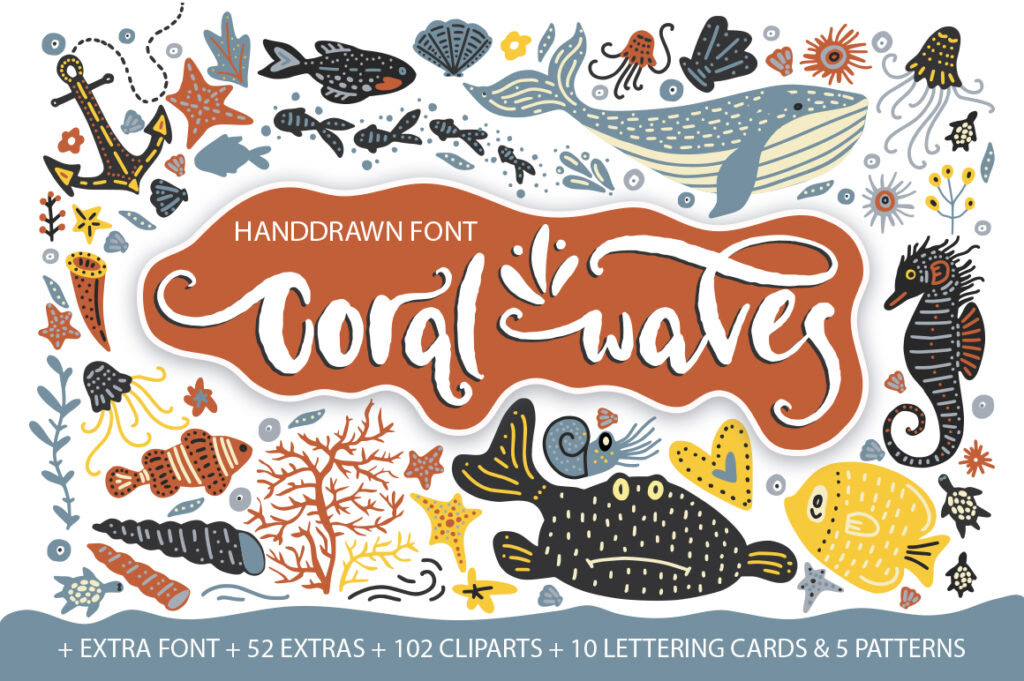
Coral Waves Font: A Friendly and Carefree Handwritten Font
Are you looking for a font that can add a touch of friendliness and carefree spirit to your designs? Look no further than the Coral Waves Font. This amazing handwritten font is perfect for a wide range of design projects, from branding and advertising to packaging and digital media. In this article, we’ll take a closer look at the Coral Waves Font, its features, and how you can use it to elevate your designs.
What is Coral Waves Font?
Coral Waves Font is a beautiful, hand-written font that exudes a sense of friendliness and playfulness. Its carefree and whimsical design makes it perfect for designs that require a personal touch. The font comes with a range of features that make it versatile and easy to use, including stylistic alternates, ligatures, and a range of extras.
Features of Coral Waves Font
So, what makes Coral Waves Font so special? Here are just a few of its key features:
- 2 Fonts: The Coral Waves Font pack includes two unique fonts that you can use in your designs.
- 102 Clip Art files: The font pack includes 102 clip art files that you can use to add a personal touch to your designs.
- 10 Lettering Cards: The font pack also includes 10 lettering cards that you can use as inspiration for your designs.
- 52 Extras: The font pack includes 52 extras, including bonus fonts, ligatures, and stylistic alternates.
- 5 Patterns: The font pack also includes 5 beautiful patterns that you can use to add texture and interest to your designs.
Why Choose Coral Waves Font?
So, why should you choose Coral Waves Font for your design projects? Here are just a few reasons:
- Unique and eye-catching design: The Coral Waves Font has a unique and eye-catching design that will make your designs stand out from the crowd.
- Easy to use: The font is easy to use and comes with a range of features that make it versatile and flexible.
- Friendly and carefree spirit: The font has a friendly and carefree spirit that makes it perfect for designs that require a personal touch.
How to Use Coral Waves Font
So, how can you use Coral Waves Font in your designs? Here are a few ideas:
- Branding and advertising: Use the font to create eye-catching branding and advertising materials, such as logos, brochures, and flyers.
- Packaging design: Use the font to create beautiful and eye-catching packaging designs that will make your products stand out on the shelves.
- Digital media: Use the font to create engaging and interactive digital media, such as social media graphics, blog posts, and email newsletters.
- Stationery and paper products: Use the font to create beautiful and unique stationery and paper products, such as greeting cards, invitations, and letterheads.
Tips and Tricks for Using Coral Waves Font
Here are a few tips and tricks for using Coral Waves Font in your designs:
- Experiment with different colors and textures: The font looks great in a range of colors and textures, so don’t be afraid to experiment and find the perfect combination for your design.
- Use the font in combination with other fonts: The font pairs well with a range of other fonts, so try using it in combination with other fonts to create a unique and eye-catching design.
- Take advantage of the extras: The font pack includes a range of extras, including clip art files, lettering cards, and patterns. Take advantage of these extras to add a personal touch to your designs.
In conclusion, Coral Waves Font is a beautiful and versatile handwritten font that is perfect for a wide range of design projects. Its friendly and carefree spirit makes it a great choice for designs that require a personal touch. With its range of features, including stylistic alternates, ligatures, and extras, it’s a great value for money. So why not give it a try and see how it can elevate your designs?